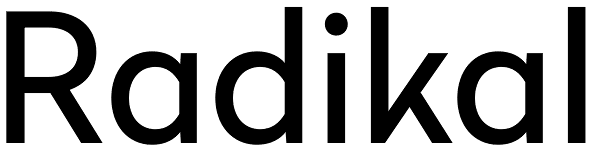
Radikal
Radikal is a geometric font dedicated to the research of purity. The Radikal family includes 7 weights, from UltraThin to Black, with their corresponding italics. Each font includes OpenType Features such as Proportional Figure, Tabular Figures...